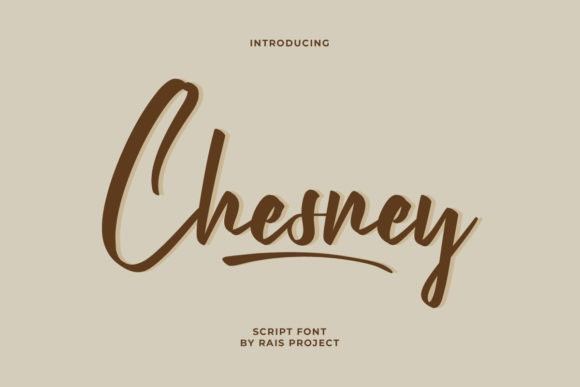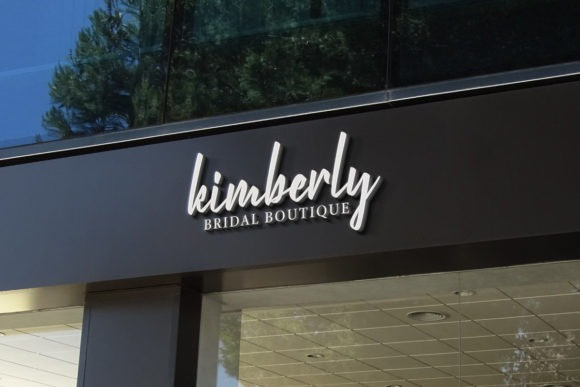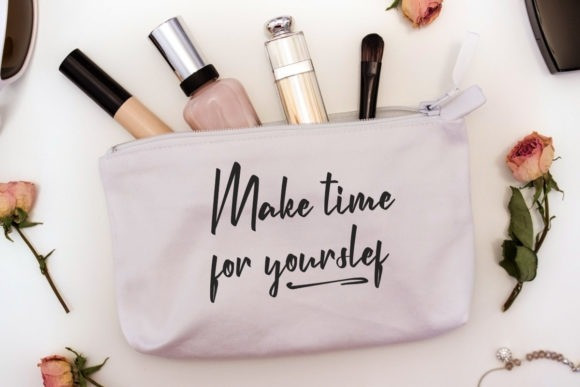
Chesney Font
Chesney is a beautiful and flowing script font. It will elevate a wide range of crafting ideas, from cards, to branding, labels and much more.